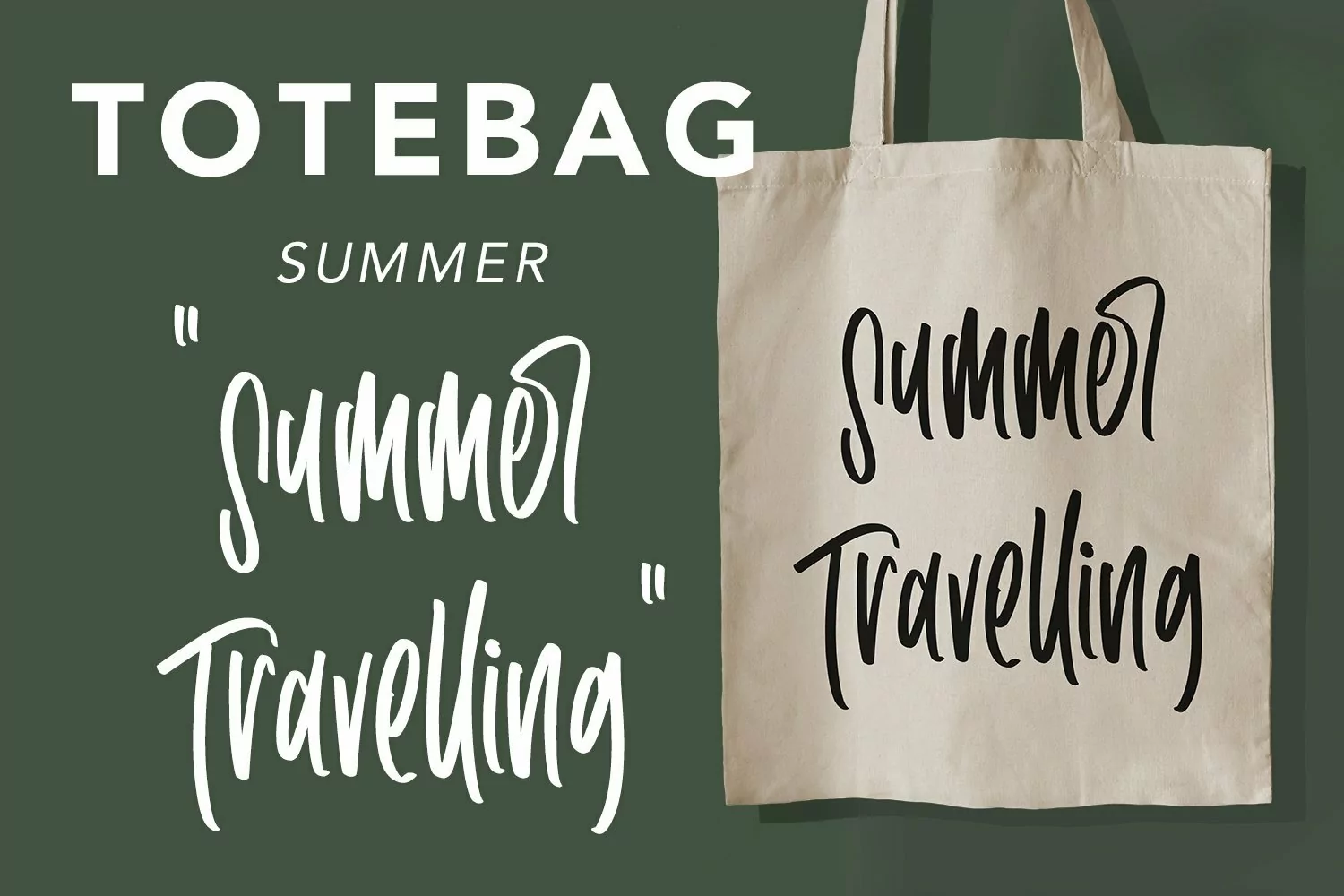
Web Font Crazy Summer - Summer Display Font that has a distinctive character that is very thick and elegant to use
Crazy Summer is a relaxed and flowing Calligraphy Font. Incredibly versatile, this font fits a wide pool of designs, elevating them to the highest levels. Add this font to your favorite creative ideas and notice how it makes them come alive!
Crazy Summer